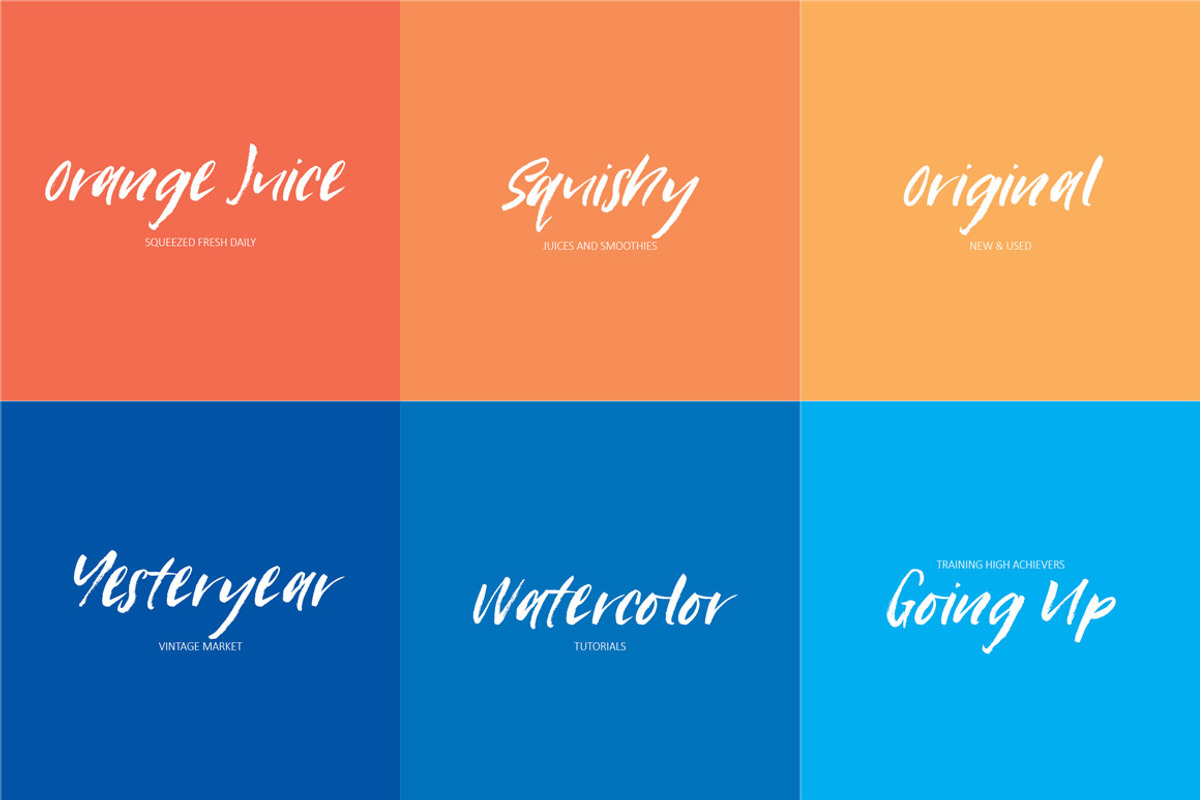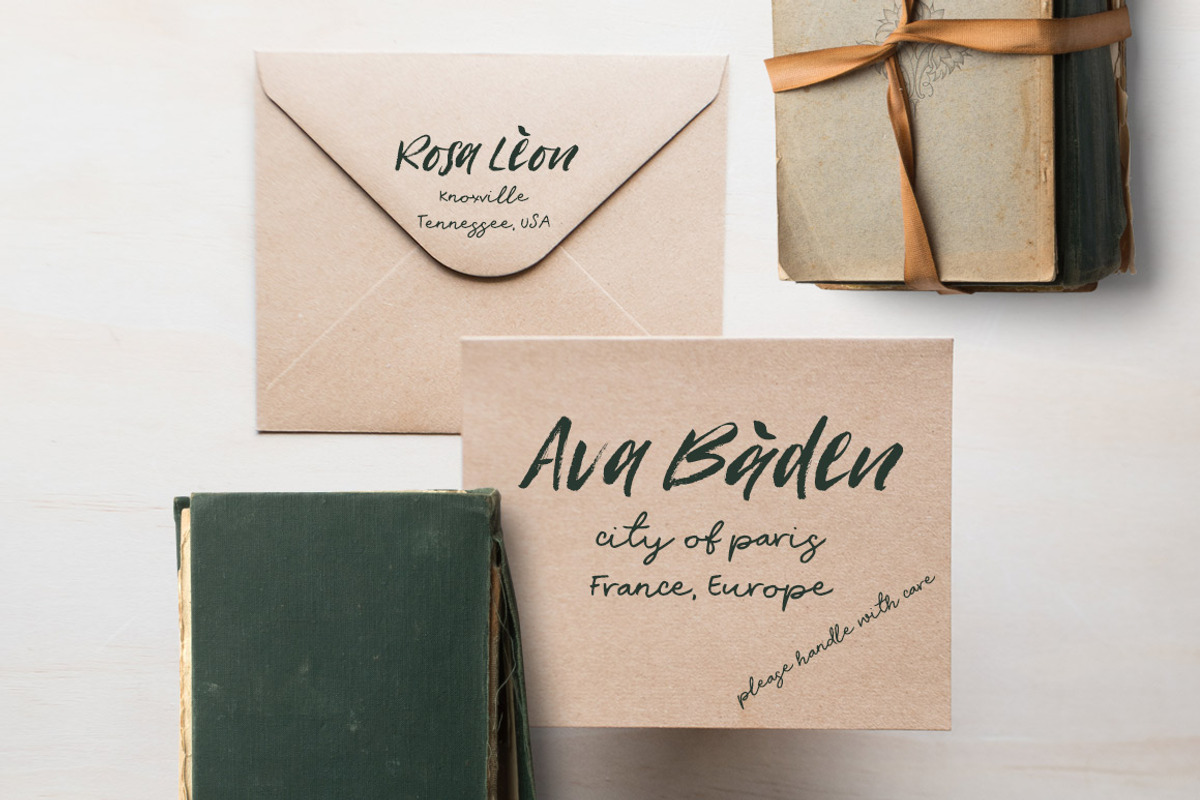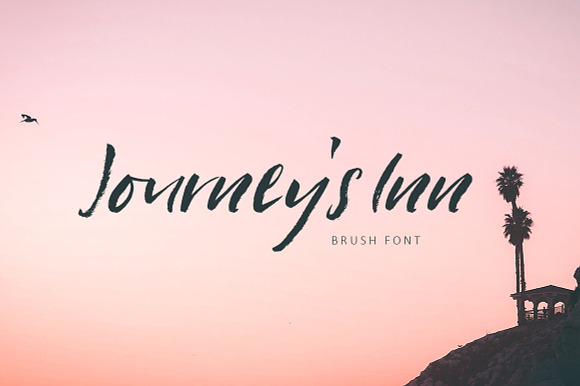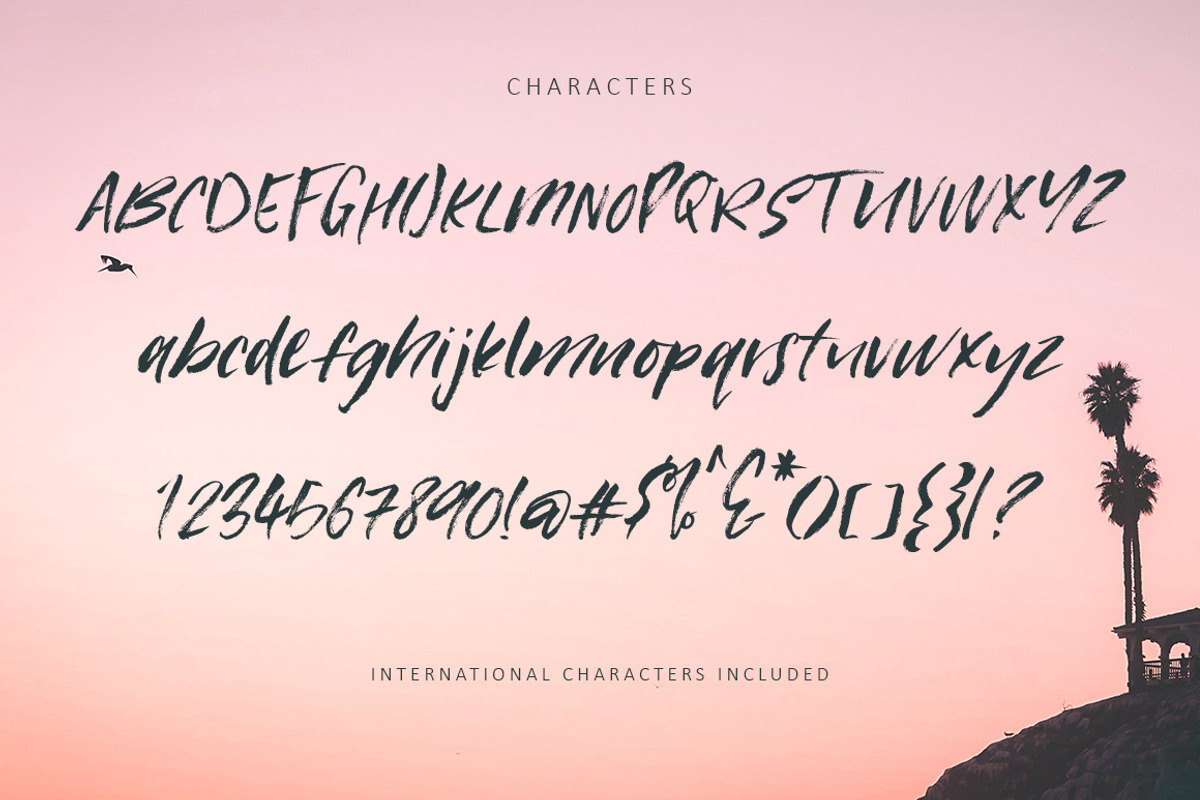
Journey's Inn Font
Introducing Journey's Inn brush font.
This is a hand brushed font perfect for quotes, logos, invites, cards, and much more.
Journey's Inn Font by Creativeqube Design fits naturally into Branding, posters, packaging, typography.